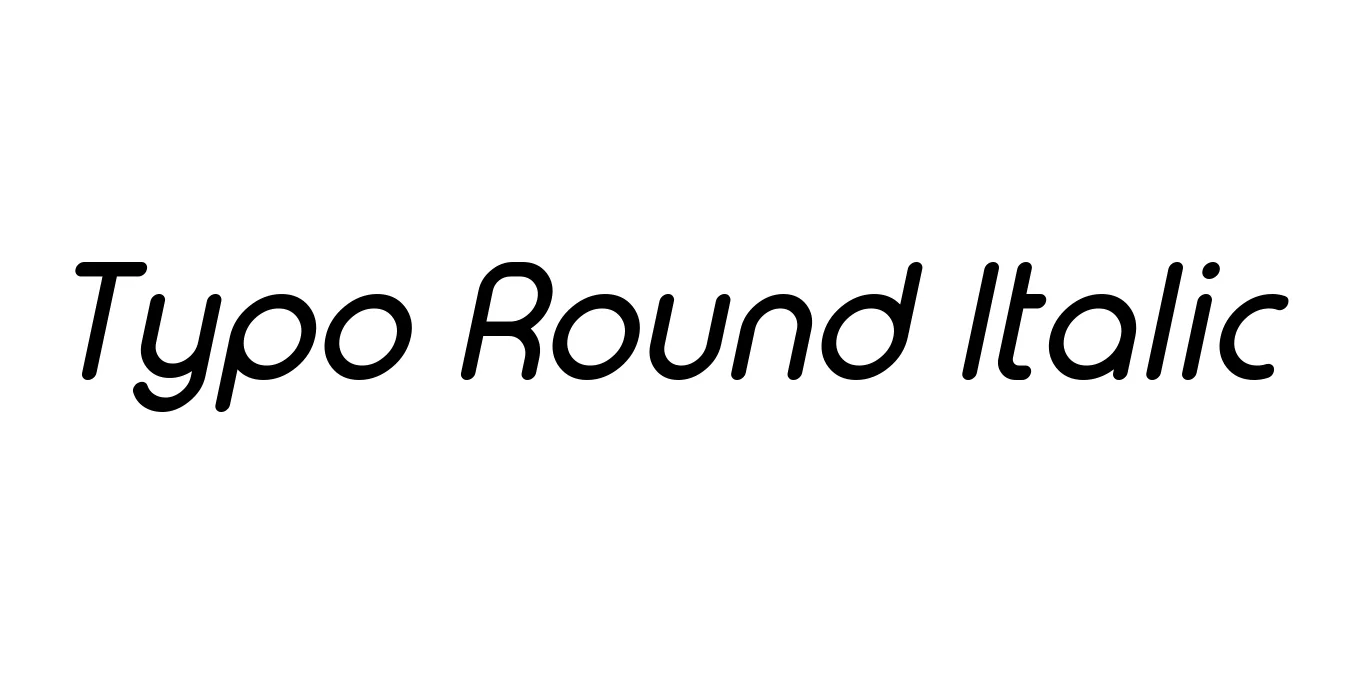
Typo Round Italic
Designed by Studio Typo
Typo Round Italic is a sophisticated sans-serif typeface that prioritizes softness and geometric harmony. Created by Studio Typo, this font family is recognized for its perfectly rounded terminals and balanced proportions, which transform standard letterforms into approachable, friendly visual elements. The italic variant adds a refined sense of momentum and slant, making it particularly effective for conveying motion or subtle emphasis within modern layout designs.
This typeface is engineered for high legibility, featuring a large X-height and open counters that perform exceptionally well in both low-resolution digital environments and high-quality print productions. Because of its lack of harsh angles, it is often selected for lifestyle branding, educational materials, and mobile application interfaces where a welcoming and professional tone is required to engage the audience effectively.
Typo Round Italic Best Uses
Perfect for user interfaces that require a friendly and accessible look.
Excellent for creative logos and identity systems for modern startups.
Soft shapes make it highly suitable for toys, books, and educational content.
The italic slant provides a dynamic energy for headlines and call-to-actions.